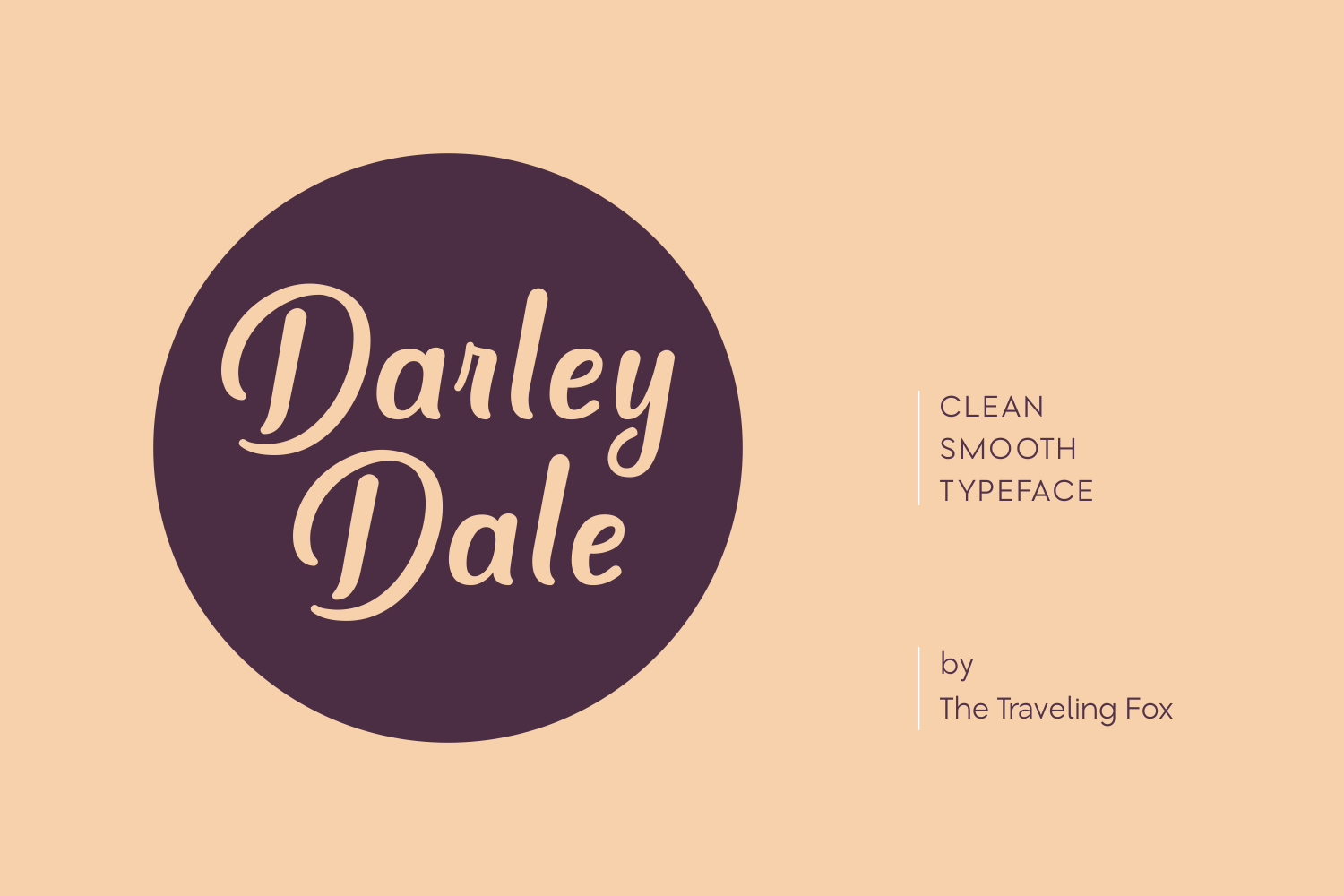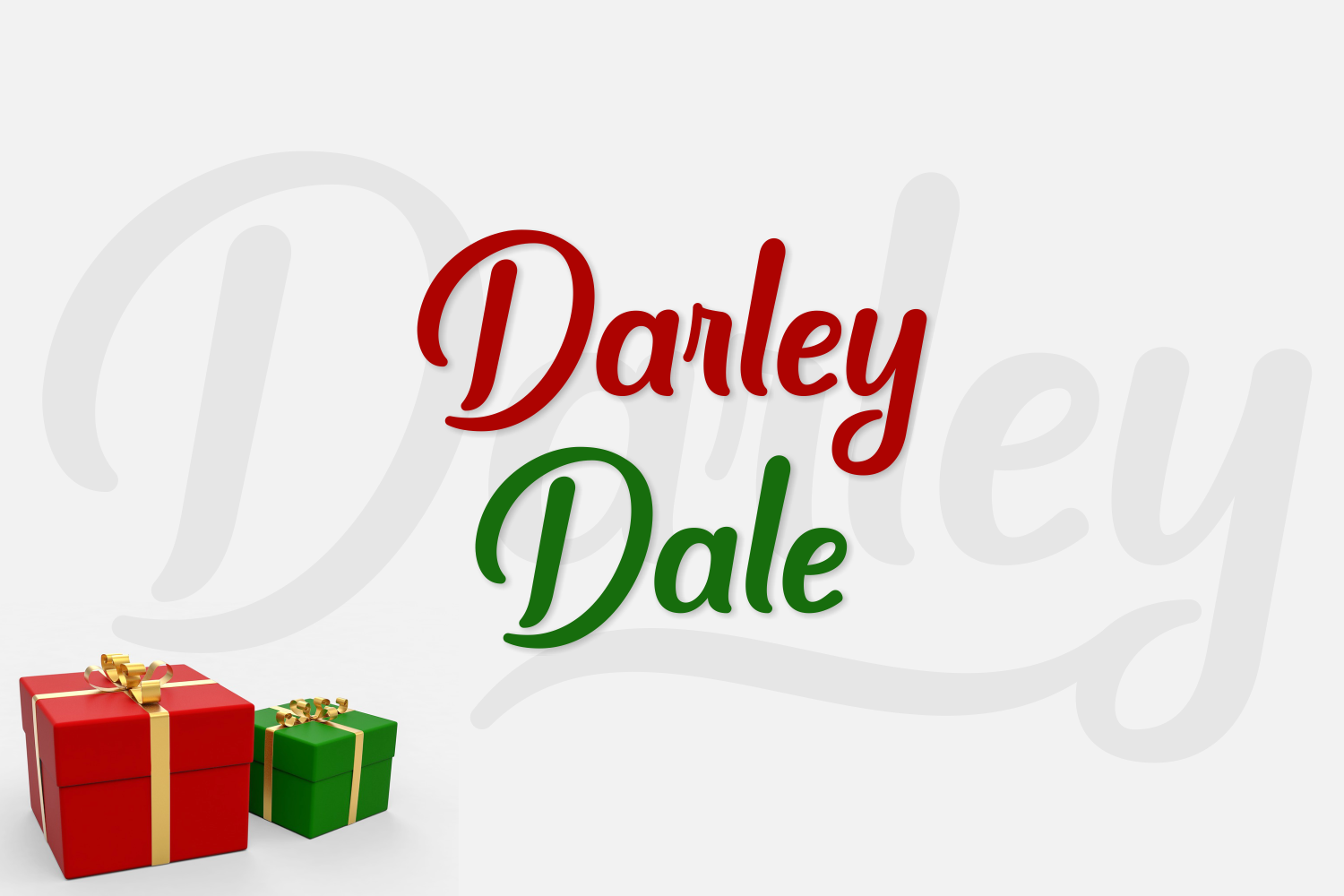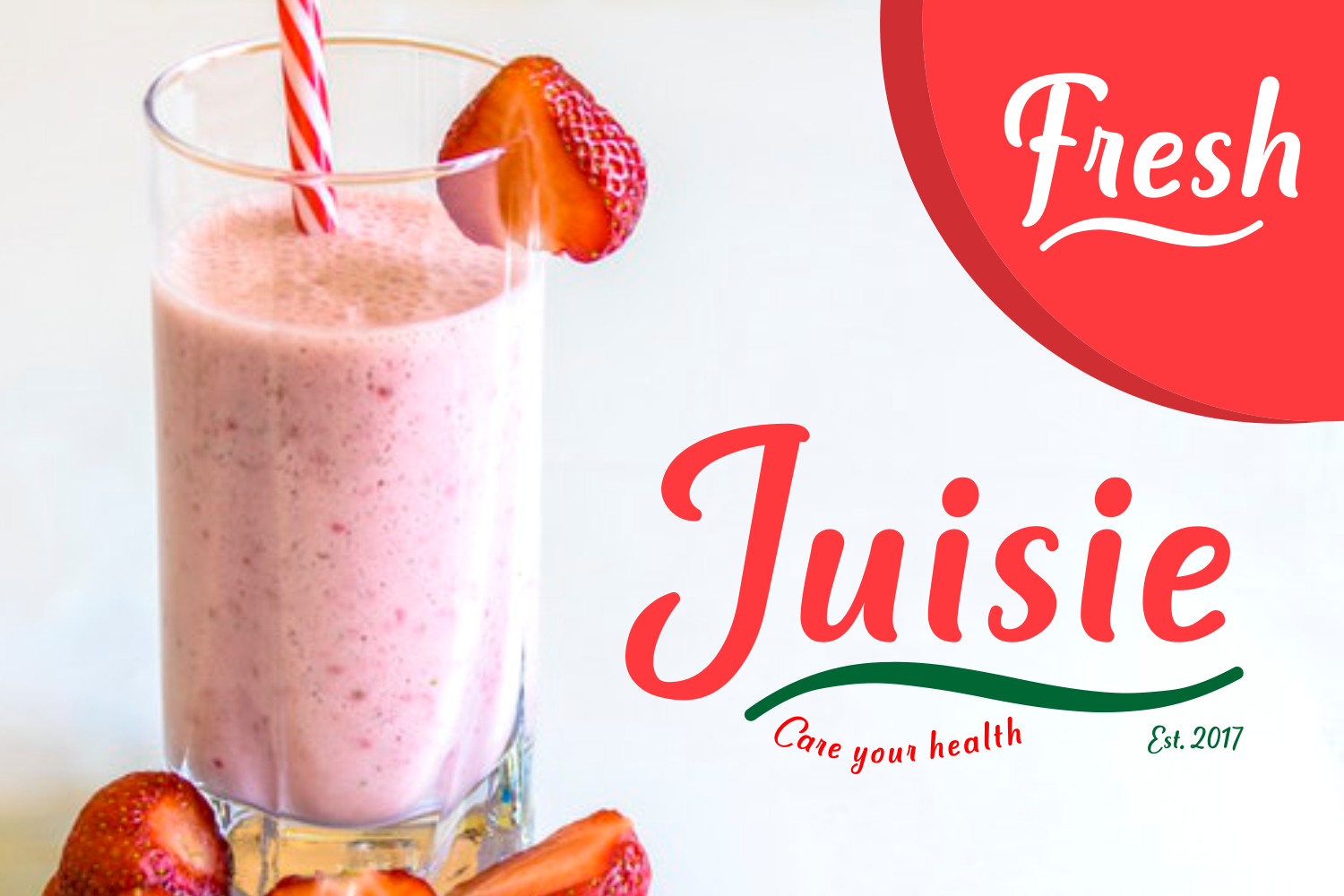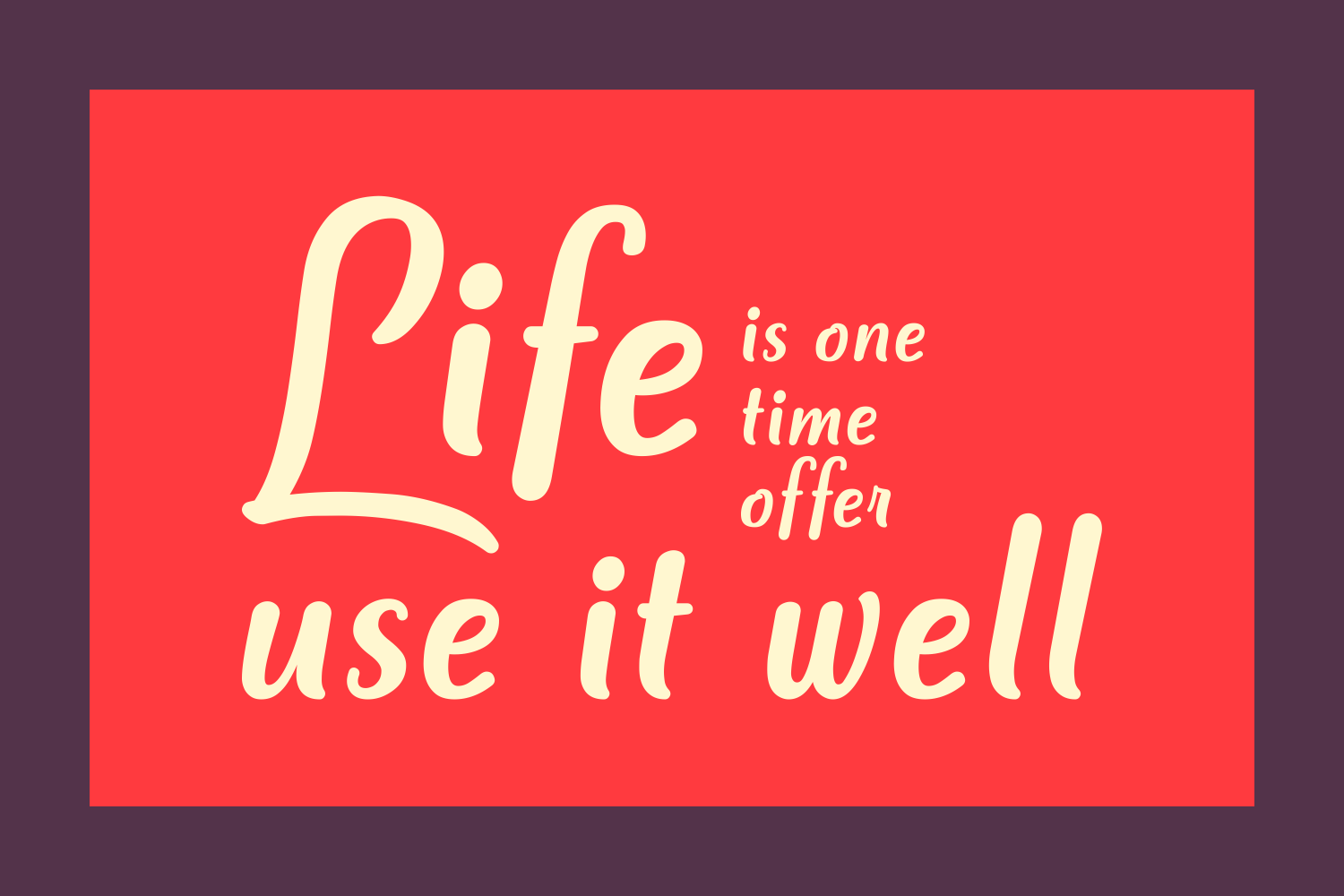
Darley Dale Font
About Darley Dale Font
Darley Dale is a clean and smooth script typeface, bold and suitable for display purposes. Darley Dale is beautiful enough to use time and time again.